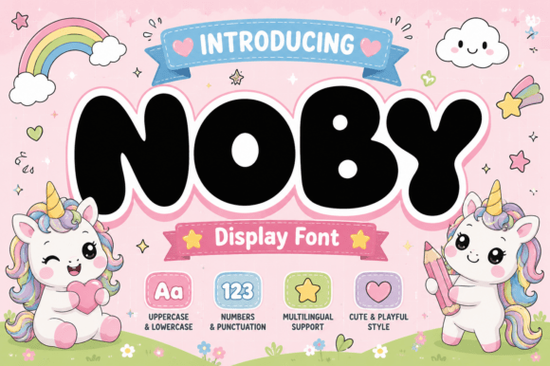
If you're looking for a font that feels like a friendly smile in print, Noby Font delivers exactly that. This playful display typeface stands out with its soft, rounded shapes and bold, balloon-like forms perfect for designs that want to feel joyful and approachable. Whether you're creating kids’ products, fun social media graphics, or whimsical branding, Noby adds a touch of charm without sacrificing clarity.
What Makes Noby Font So Special?
The design of Noby is built around a few key qualities that make it ideal for creative projects:
- Rounded & Bold Shapes: Every letter has fully softened edges and consistent thickness, giving each character a puffy, almost squishy look like a cloud made of ink.
- Cute, Kawaii-Inspired Style: Inspired by child-friendly illustration trends, the font feels lively and warm, making it great for anything from baby shower invites to colorful stickers.
- Organic, Slightly Irregular Forms: Unlike rigid geometric fonts, Noby’s letters have a hand-crafted feel slightly uneven and natural, which adds personality and avoids looking too machine-made.
- Bright Colors Work Best: The font shines when paired with pastels or vibrant hues like pink, sky blue, lemon yellow, or lavender. Adding a stroke (outline) or subtle shadow can give it a light 3D effect, boosting visual impact.
- Clear Readability for Display Use: Even though it's decorative, the letters stay easy to read especially for short phrases or titles, so your message doesn’t get lost in the cuteness.
Where Can You Use Noby Font?
This font isn’t just for kids’ stuff it’s versatile enough for many creative uses. Here are some common applications:
- Designing t-shirts, tote bags, water bottles, and notebooks for children’s brands
- Creating school event posters, classroom signage, or educational materials
- Adding flair to stickers, digital illustrations, or printable art
- Boosting engagement on Instagram, TikTok, or Pinterest with fun, colorful captions
- Personalizing gifts with names, quotes, or playful messages
Because it’s designed as a display font, it works best with short text. Using it for long paragraphs would be overwhelming, but as a headline or focal point? It’s a standout choice.
How Does It Compare to Other Fun Fonts?
If you’ve explored other playful fonts, you might have come across similar styles like Lazy Daze Font, Cowboy Zombie Font, or Pinky Pop Font. Each brings its own vibe: Lazy Daze leans into laid-back charm, Cowboy Zombie mixes quirky humor with bold lines, and Pinky Pop adds retro candy energy.
Noby sits in a sweet spot between those styles more consistently rounded and softer than most, with a gentler, more inclusive feel. It’s less “edgy” than Cowboy Zombie, less “retro” than Pinky Pop, and less “laid-back” than Lazy Daze. Instead, it offers a clean, cheerful energy that fits a wide range of creative themes.
For a slightly bolder, more structured take on the bubble style, check out Choks Font, which has a more defined edge while still keeping a friendly tone. But if you want something extra soft and cuddly, Noby is the one.
Why Designers Love Using Noby
It’s not just about looks Noby performs well in real-world design work. Its readability means it won’t frustrate your audience, even at smaller sizes. The font supports multiple languages and includes full character sets, so you’re not limited to English-only text.
For print-on-demand sellers, this font helps create instant brand identity. A simple logo or product label using Noby instantly signals fun, warmth, and creativity without needing complex illustrations.